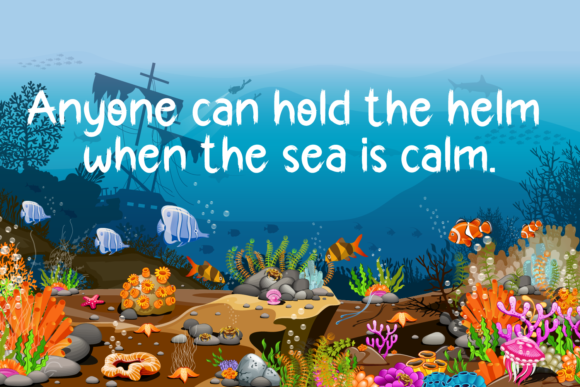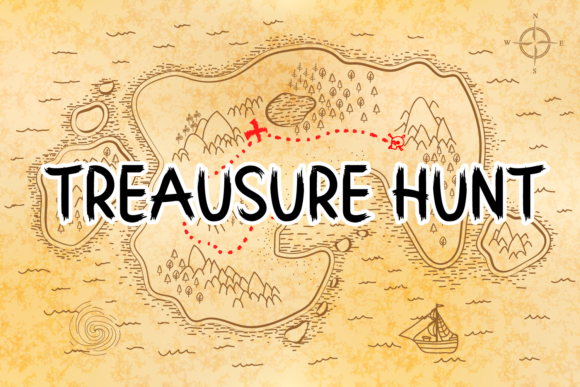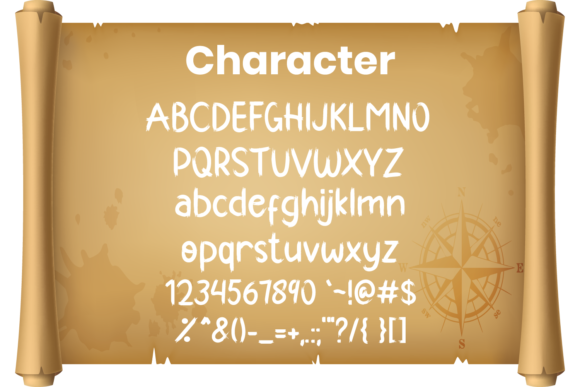
The Perfect Brush for Your Next Creative Project
Have you ever stared at a blank canvas, waiting for inspiration to strike? I’m sure we’ve all been there at some point or another. It’s that moment when you finally see it – a spark of creativity that sets your imagination ablaze. For designers, this spark can come in many forms, but one thing is certain: the right tools can make all the difference.
Enter the Happy Cute Story Font, a charming brushed display font designed to bring a smile to your audience’s faces. Whether you’re creating a cartoon, designing a children’s game, or just want to add a touch of whimsy to your next project, this font is an amazing choice. Its unique, hand-drawn feel is sure to captivate and delight, making it a valuable addition to any designer’s toolkit.
Key Features of Happy Cute Story Font
- Unique Characteristics: The font features a playful, hand-drawn style with intricate details and subtle imperfections, giving it a charming and whimsical feel.
- Kerning and Ligatures: The font includes advanced kerning and ligature pairs, ensuring smooth text flow and enhancing the overall aesthetic appeal.
Designer Review: Happy Cute Story Font
Overall, I’m quite pleased with the Happy Cute Story Font. ✨ It’s playful, fun, and perfect for projects that require a lighthearted tone. The font’s whimsical nature is ideal for children’s books, greeting cards, and other creative applications.
The Happy Cute Story Font’s unique character set and expressive curves make it stand out from other sans-serif fonts. ✨ The font’s high x-height also ensures readability, even at smaller sizes. Additionally, the font’s compatibility with a wide range of devices and operating systems is a major plus.
While the Happy Cute Story Font excels in many areas, there are a few limitations to consider. ⚠️ The font’s irregular letter spacing can make it challenging to use in longer blocks of text. Furthermore, the font’s rounded edges may not be suitable for projects that require a more professional or serious tone.
The Happy Cute Story Font is a delightful addition to any designer’s toolkit. While it may not be the best choice for every project, its unique charm and versatility make it a great option for designers looking to add a touch of whimsy to their work.
- Unique character set with expressive curves
- High x-height for readability
- Wide compatibility with devices and operating systems
- Perfect for lighthearted projects, such as children’s books and greeting cards
Happy Cute Story Font: A Practical Application Guide
Tip: Use Happy Cute Story Font to create eye-catching headlines and titles in your designs.
Tip: Use Happy Cute Story Font to add a touch of whimsy to your illustrations and graphics.
Tip: Use Happy Cute Story Font to create engaging titles and headings in your presentations and documents.
Happy Cute Story Font is perfect for:
- Children’s book covers and illustrations
- Toy and game packaging